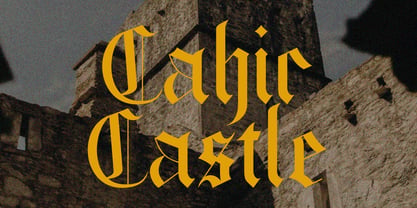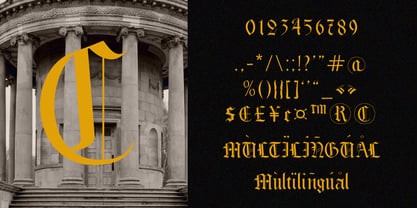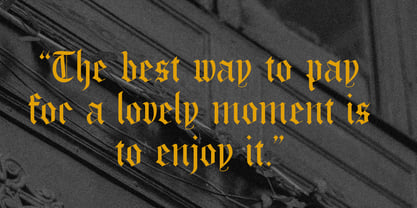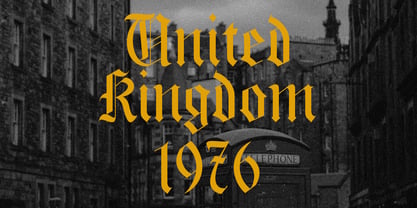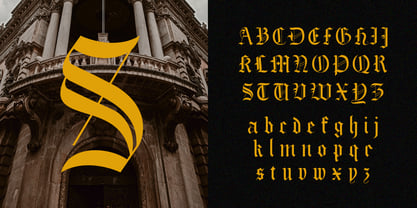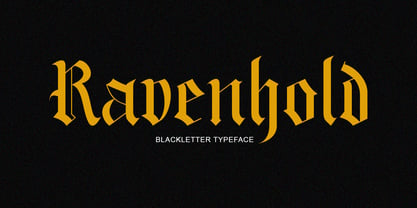
Ravenhold
by Ceeskiiw
The Ravenhold Font Family was designed by Cees Kiiw and published by Ceeskiiw. Ravenhold contains 1 styles.
Ravenhold is a Blackletter (Gothic) display typeface inspired by medieval European manuscript lettering. It features sharp angular strokes, dramatic contrasts, ornamental terminals, and traditional calligraphic construction that evoke the aesthetics of illuminated manuscripts, heraldry, and historical printing.
A bold Gothic Blackletter display font inspired by medieval European manuscripts, featuring angular calligraphic strokes, ornate terminals, and a regal historical aesthetic. Perfect for fantasy branding, medieval posters, heraldic designs, vintage packaging, and decorative display applications.
Designers: Cees Kiiw
Foundry: Ceeskiiw